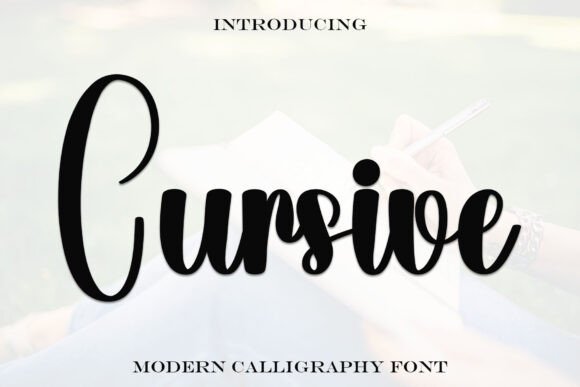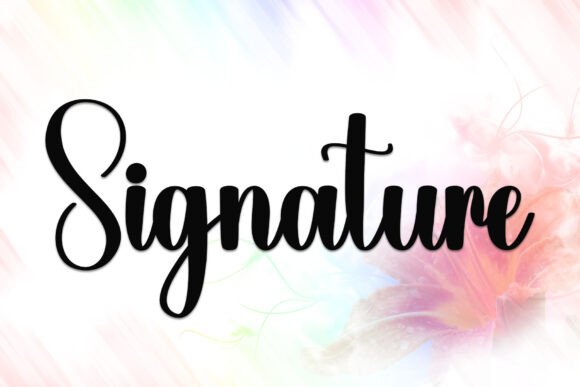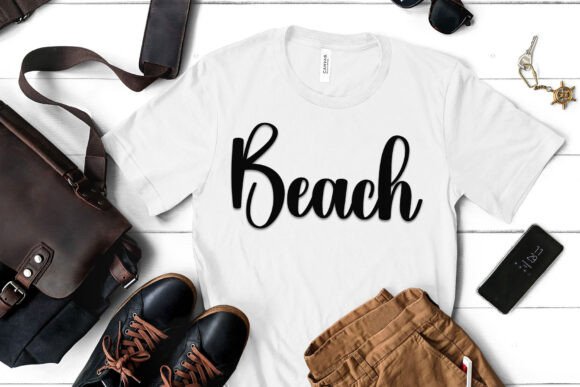
Cursive Font
About the Cursive Font
Explore the possibilities with Cursive Font, a font that offers both beauty and functionality. Cursive is a trendy handwritten font with a contemporary atmosphere and impeccable form, inspired by timeless classic calligraphy. It will add elegance and class to any of your design projects.
Cursive excels in headline usage, short paragraphs, and branding applications where a touch of refined elegance is desired. It works particularly well for invitations, logos, and short marketing materials. However, its delicate nature makes it unsuitable for body text or UI elements requiring high readability. Avoid using it for large blocks of text.
Its inherent elegance pairs well with clean sans-serif fonts like Lato or Open Sans for a balanced contrast, or a geometric sans-serif like Futura for a more modern feel. For a slightly more playful approach, consider pairing it with a rounded sans-serif.
The font projects a sophisticated and slightly playful personality; its contemporary feel makes it suitable for brands aiming for a balance of traditional elegance and modern appeal.
Cursive Font Usage Examples
Cursive Font Example